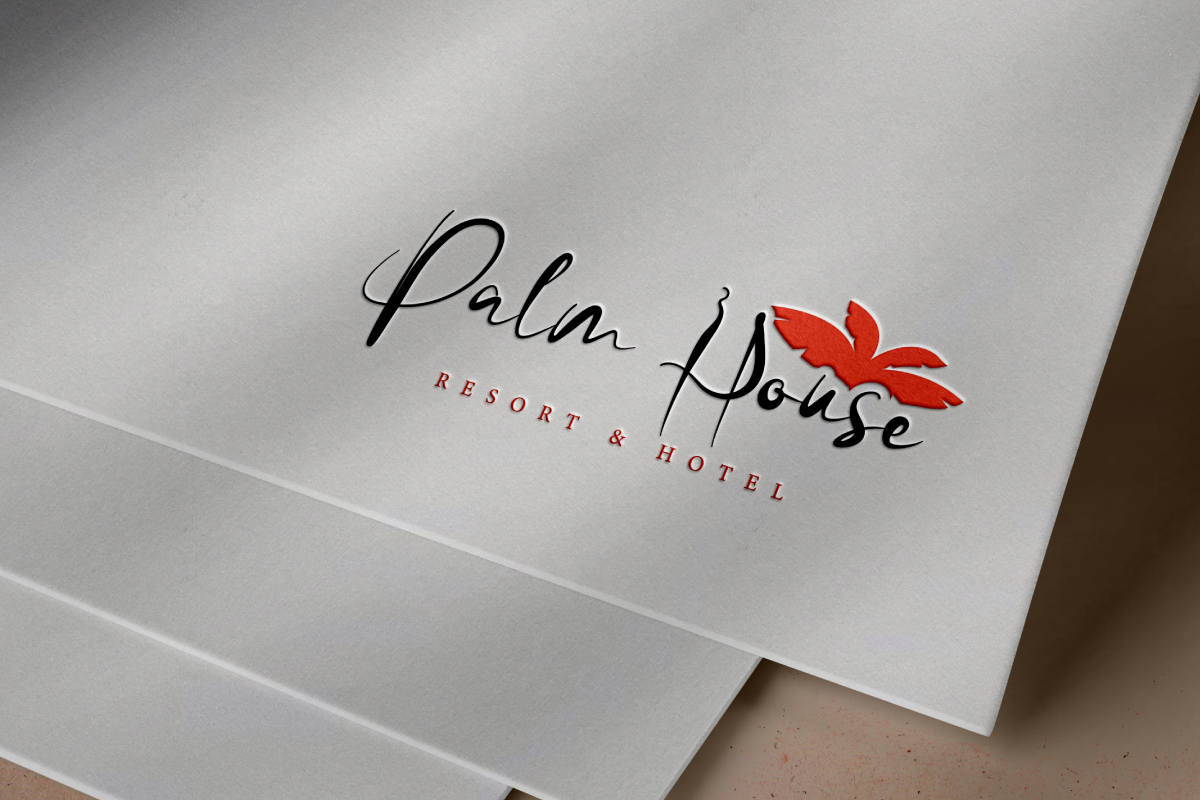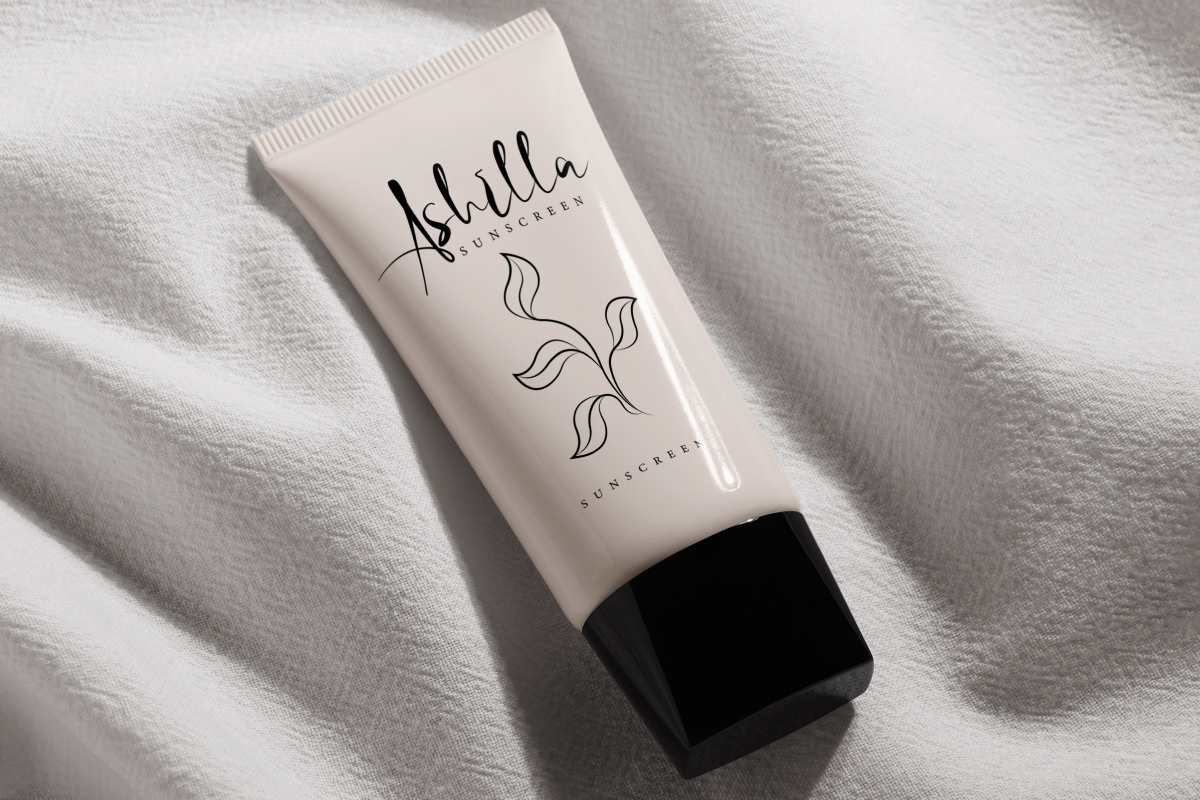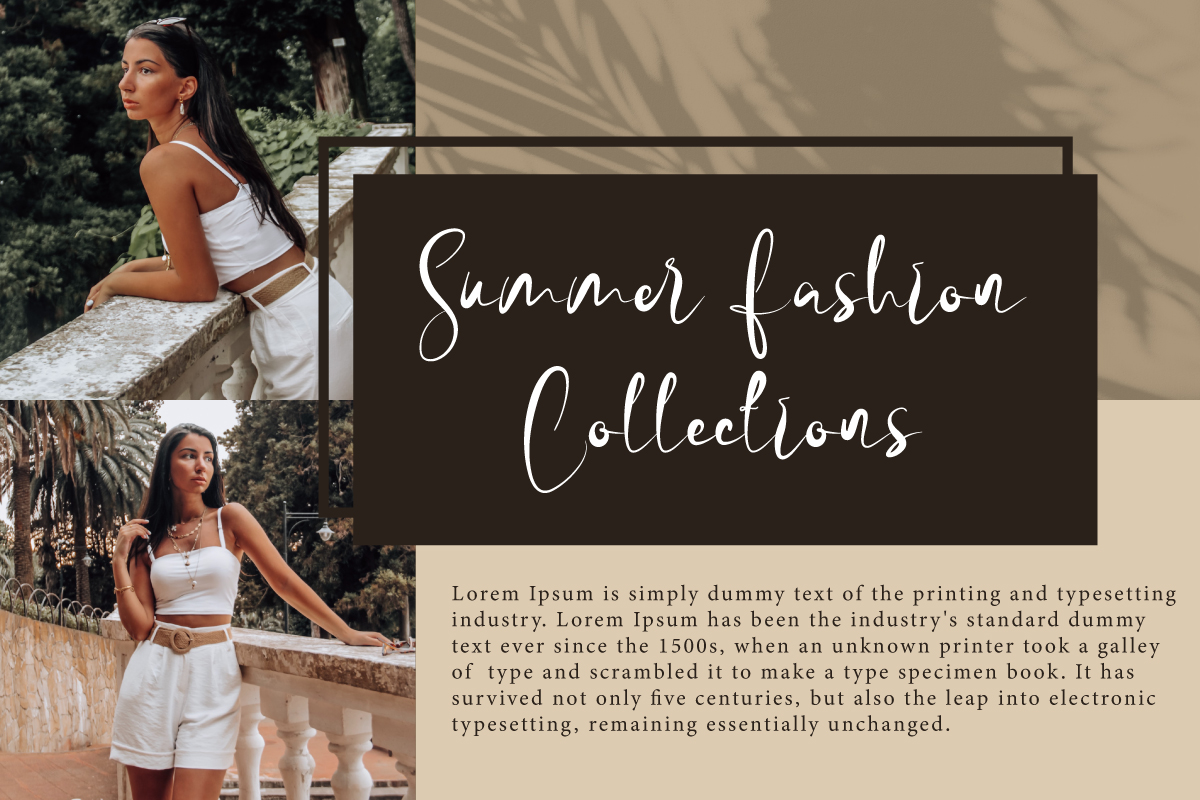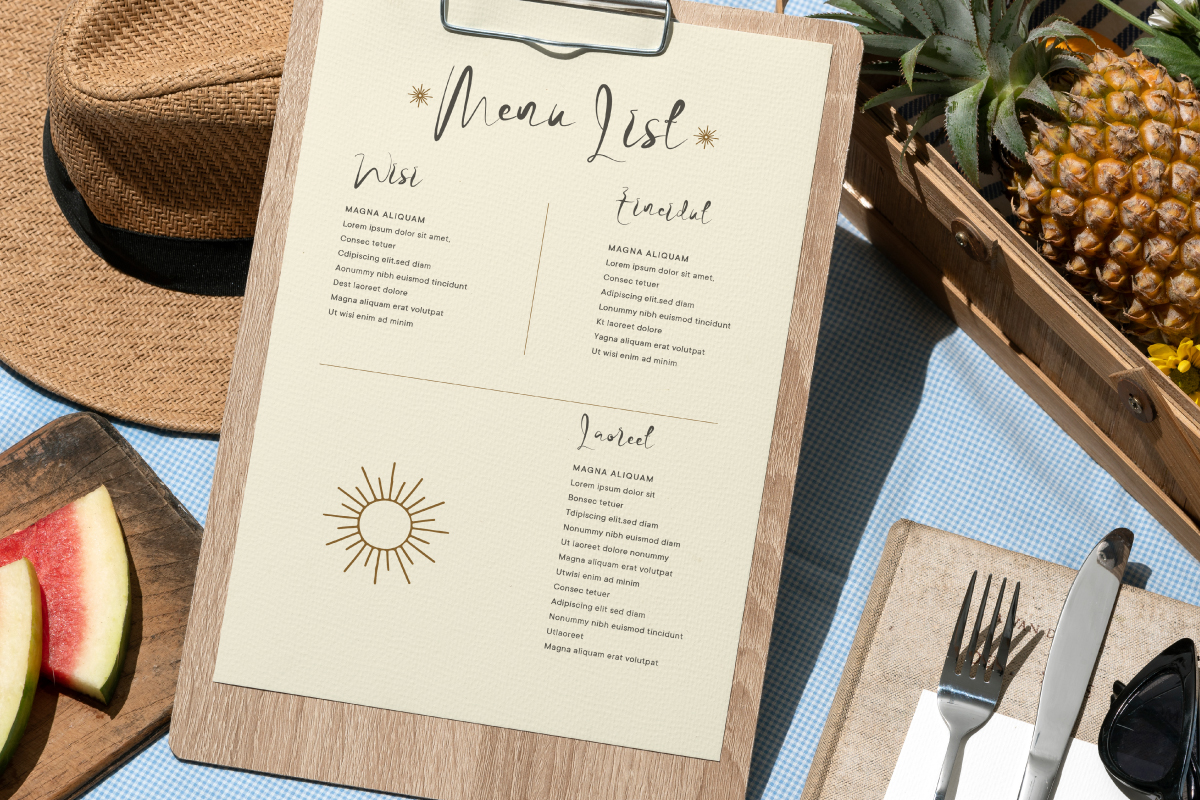
Summer Moonrise Font
Summer Moonrise Script Font
This is unique handwriting font, with signature style. This font is made with unique lines that dangle so it looks like natural handmade. This font works well for many projects such as brand logo, frame art, labels, letterhead, menu, mockup design, product packaging, quotes, stationery, website, and many more!